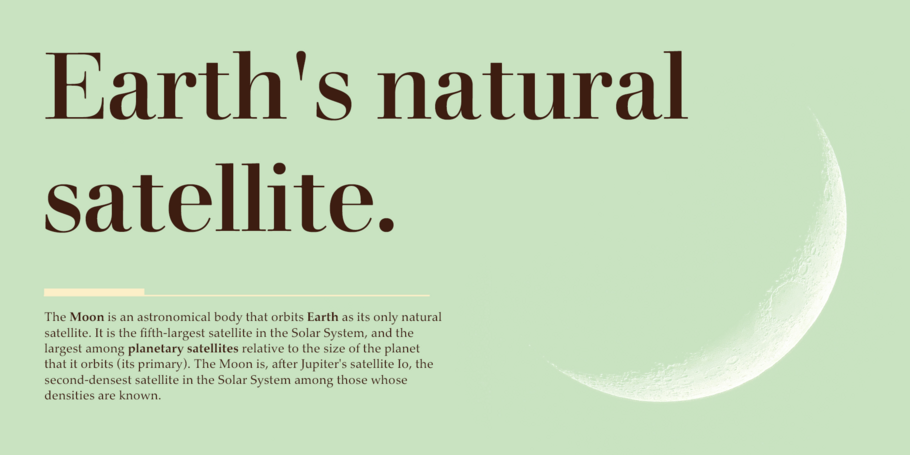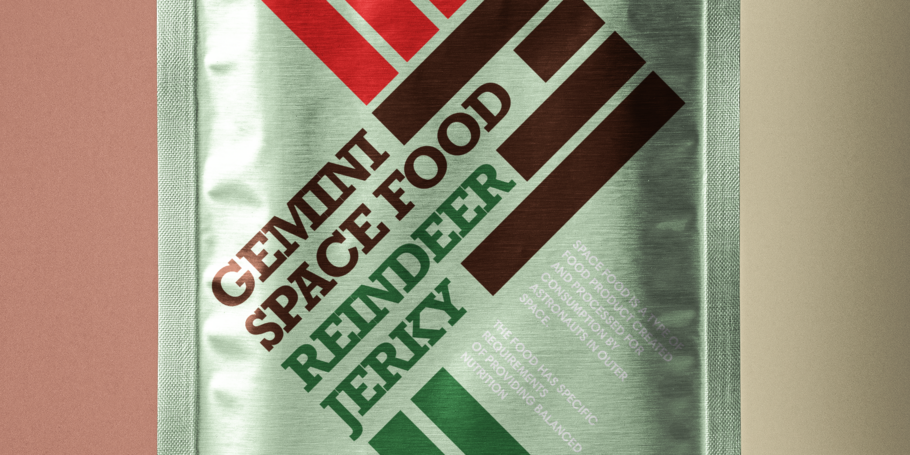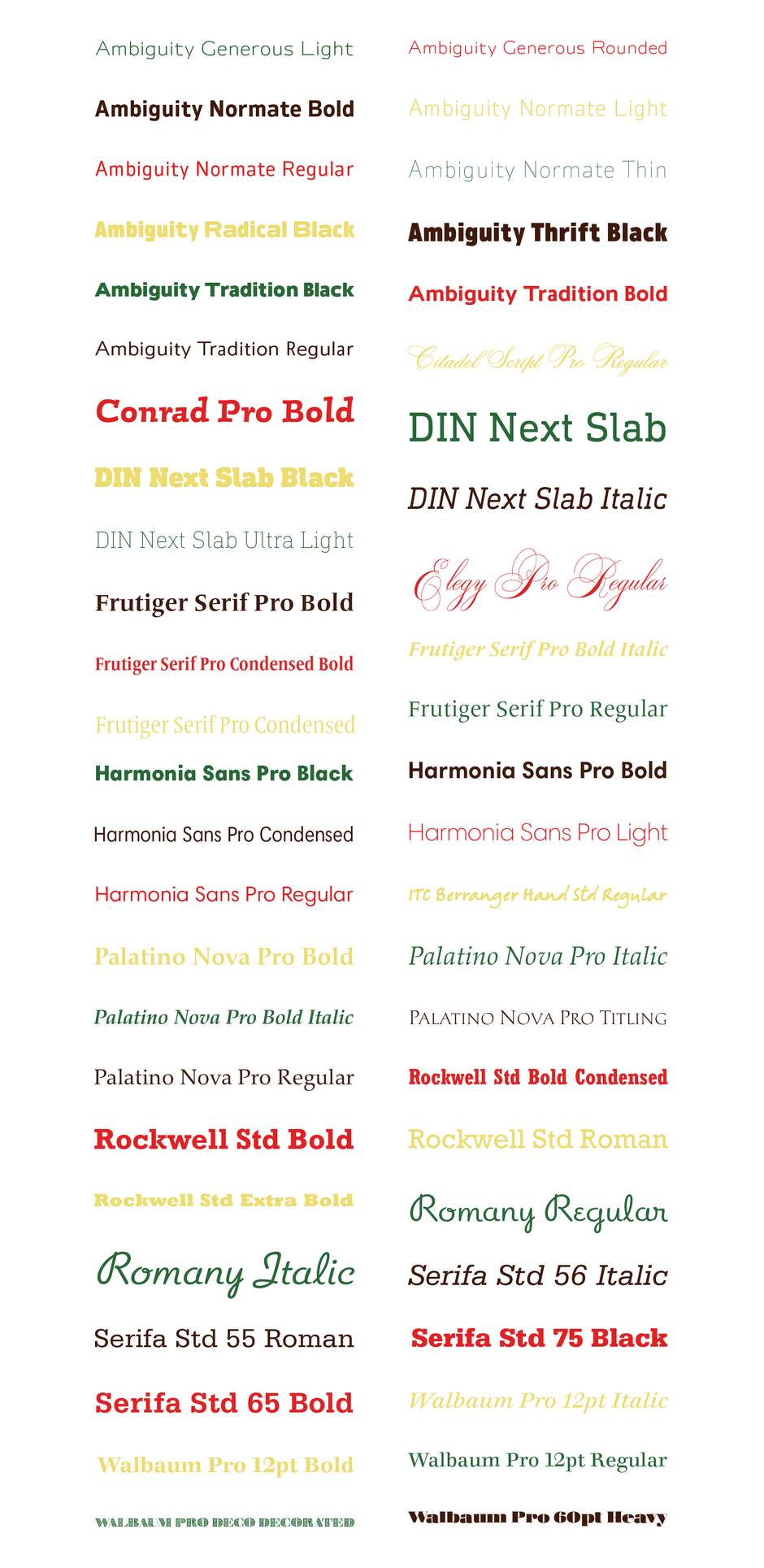
Monotype Fontacular 2020 Bundle
This font bundle offers 13 font families from Monotype, Linotype, ITC and Ascender, and features a full range of styles, including elegant scripts, enigmatic sans serifs, and sturdy slabs. Highlights include Ambiguity, a genre-bending sans serif design by Montype’s Charles Nix, which was just honored with an Innovation in Design award from FastCompany; Walbaum, a rich, layered decorative serif; ITC Berranger Hand, an inky handwriting script, and Harmonia Sans, a sturdy, warm geometric sans serif. The bundle includes 49 fonts in all across the 13 families, and is available for just $49.